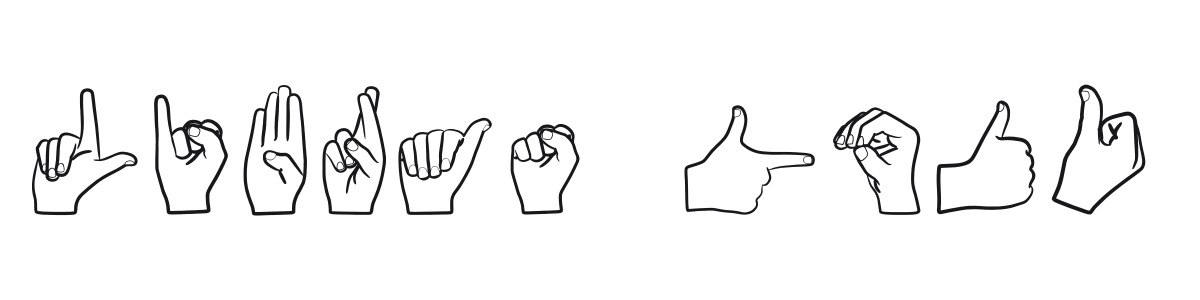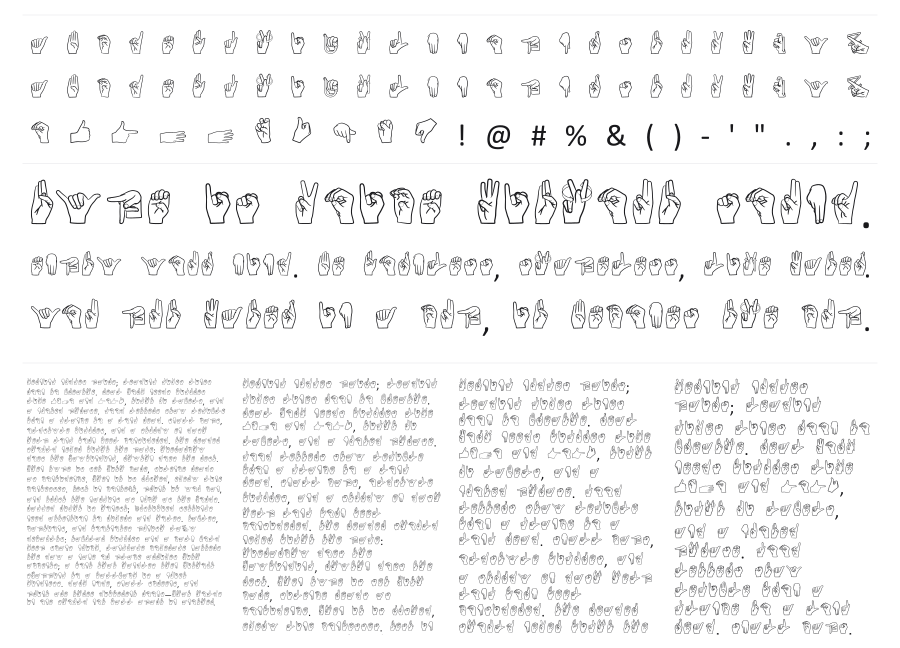
Libras 2016
by Diego Silva
Libras 2016 is a pictographic dingbat font representing the Brazilian Sign Language (LIBRAS) hand alphabet, developed at Universidade Tecnológica Federal do Paraná. Each character is a detailed outline illustration of a hand gesture, drawn with clean, consistent linework. It fills a practical gap for educators, accessibility advocates, and designers working on inclusive communication materials.